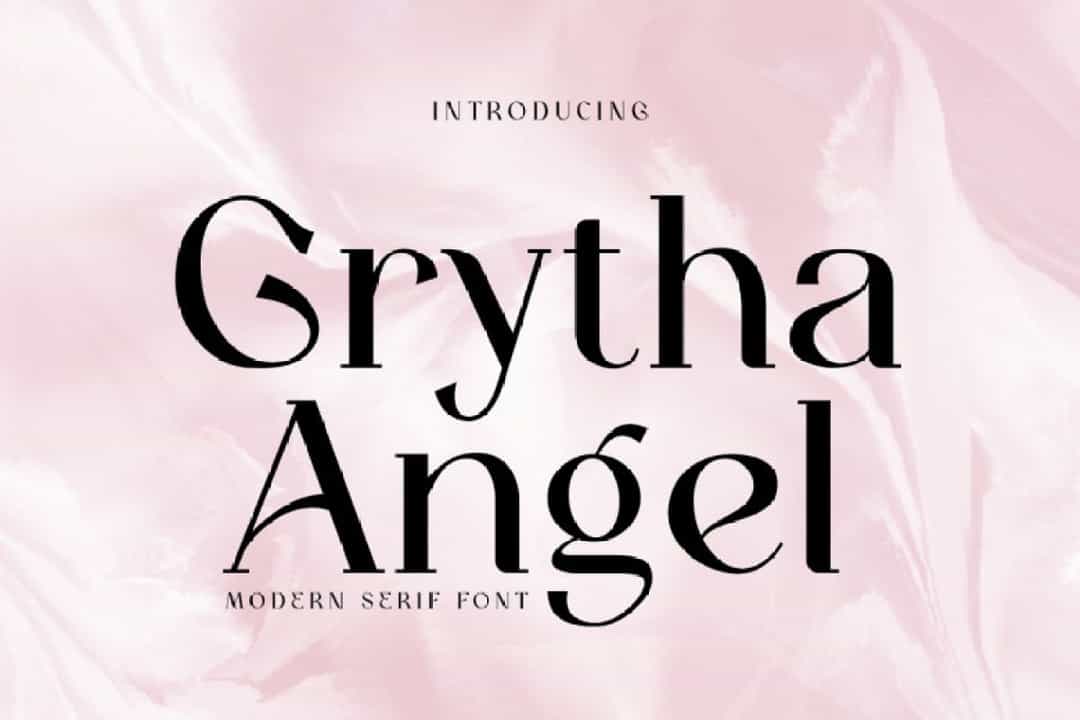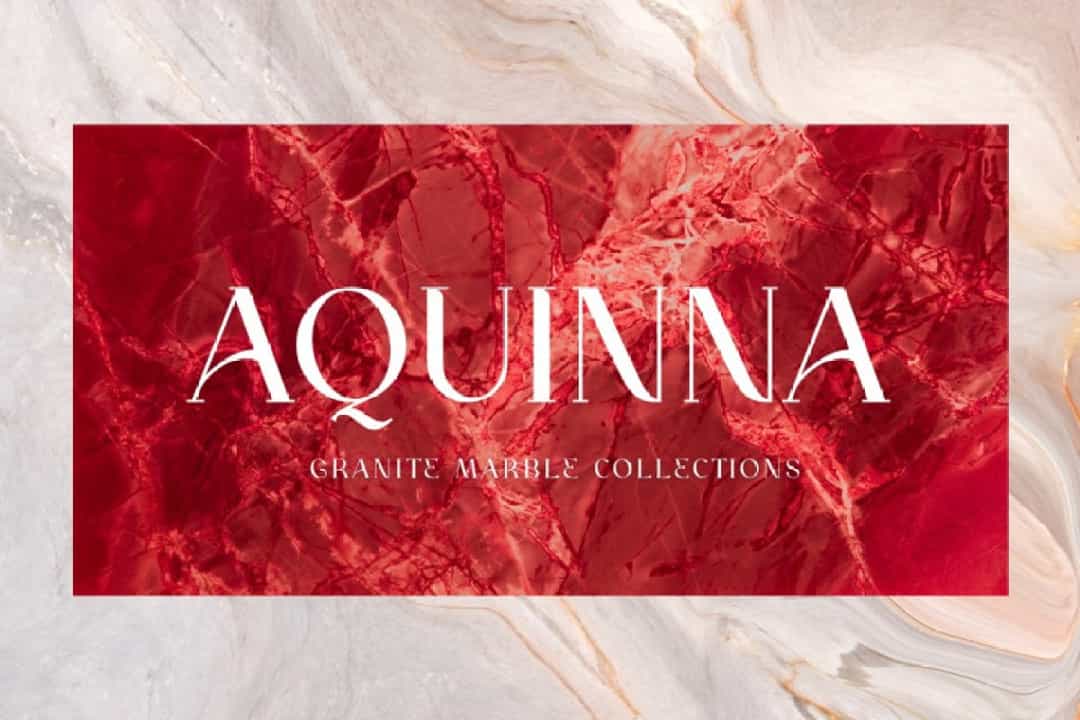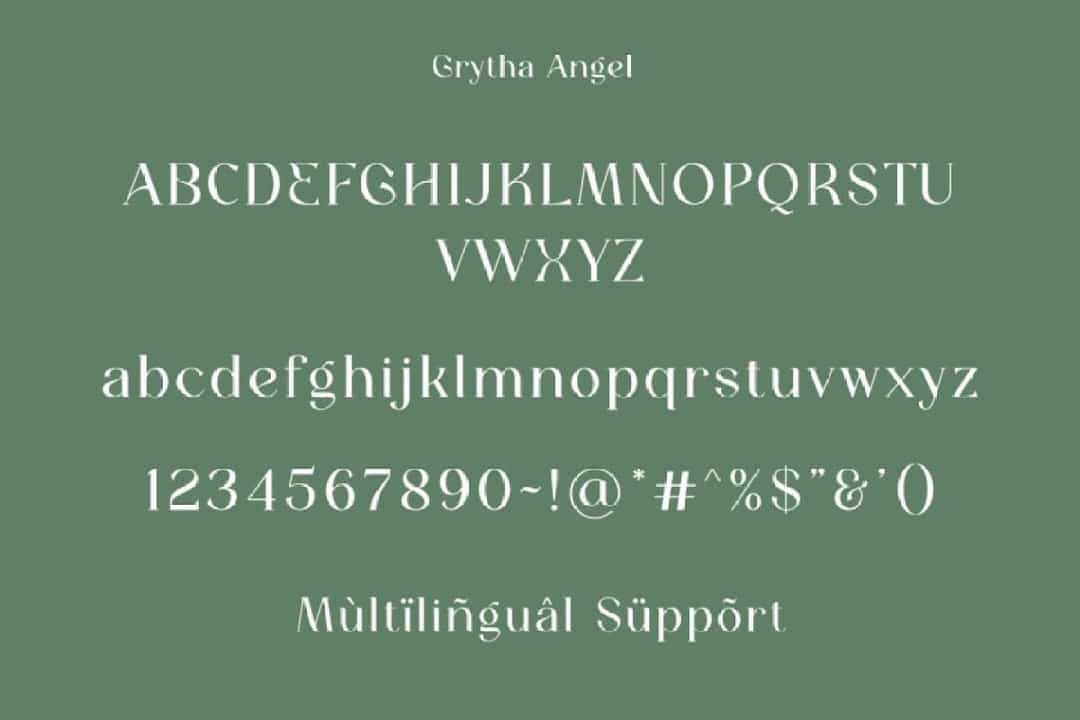
Grytha Angel from Aruna type is a versatile serif font designed to add sophistication and elegance to your design projects. Additionally, this font can be utilized for logos, book covers, mock-ups, watermax magazine ads, food-related designs, headers of coffee film headers columns brands videos even creativity projects.